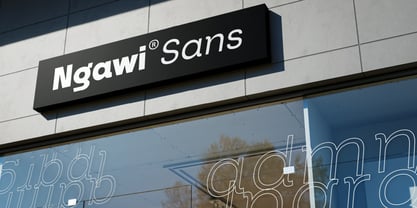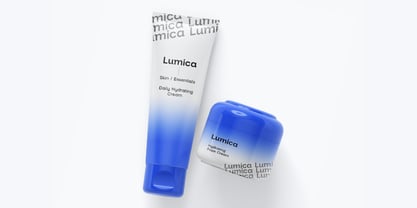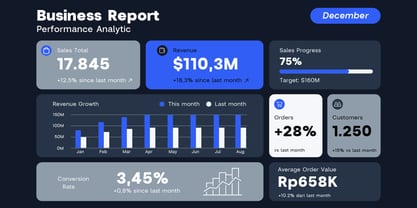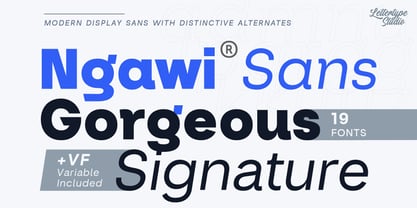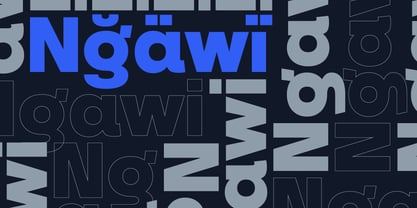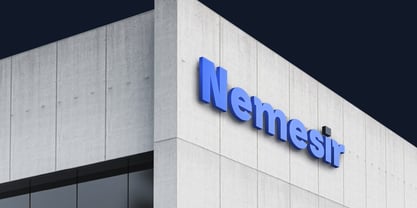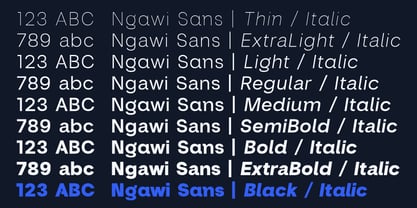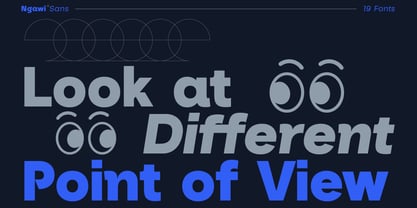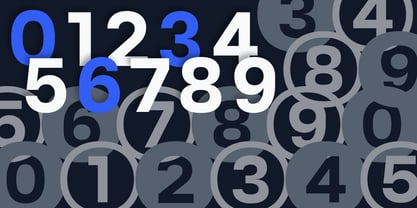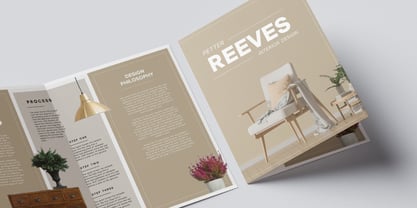
Ngawi
La famille de polices Ngawi a été conçue par Diki Pradipta Tri Atmojo et publiée par Lettertype Studio. Ngawi contient 38 styles et options de package familial. En savoir plus sur cette famille
Ngawi Sans is a contemporary display sans family designed to balance a clean, modern structure with distinctive character. The family includes 9 weights from Thin to Black, each available in Upright and Italic, giving you 18 static styles plus 1 Variable Font version. Its balanced construction makes it versatile across branding, editorial design, fashion, packaging, signage, digital interfaces, campaigns, and large-scale display typography.
The defining feature of Ngawi is its two-version system. The standard Ngawi keeps its more distinctive letterforms within the alternate glyphs, giving designers a cleaner and more controlled default style while still providing expressive options. Ngawi Display reverses that relationship, making those distinctive forms the primary characters while keeping the conventional forms available as alternates. Both versions include the same 18 static styles and Variable Font, giving you two different approaches to the same typographic character.